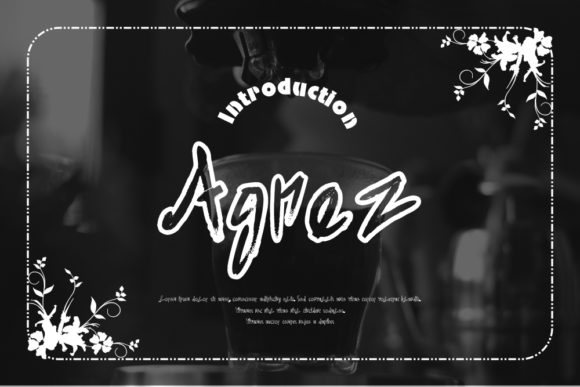
The Agnez Font: A Simple yet Quirky Handwritten Delight
I’ll never forget the design struggle I faced while working on a branding project for a crafty DIY client. I had to find the perfect font that was both clean and quirky, but it seemed like an impossible task. That’s when I stumbled upon the Agnez font, and it instantly became my go-to choice. In this article, I’ll share my experience with Agnez, its features, and how to make the most of it in your designs.
An Honest Review of Agnez Font
What I Love About Agnez ✨
- ✅ Simple and original handwritten design
- ✅ Clean and a little bit quirky, perfect for crafty DIY projects
- ✅ Great for logos, branding, and social media
- ✅ Easy to read and understand
- ⚠️ Limited character set, might not be suitable for extensive text
- ⚠️ Some users might find it too casual for formal designs
The Story Behind Agnez Font
Agnez was created by a talented designer who wanted to craft a simple yet original handwritten font. Inspired by the imperfections of brush pen writing, Agnez was born with a clean and quirky personality. The designer aimed to create a font that would be perfect for crafty DIY projects, logos, and branding.
Q: Is Agnez a versatile font?
Agnez is a relatively simple font, but it’s versatile enough to be used for various design projects, from logos and branding to social media and crafty DIY projects.